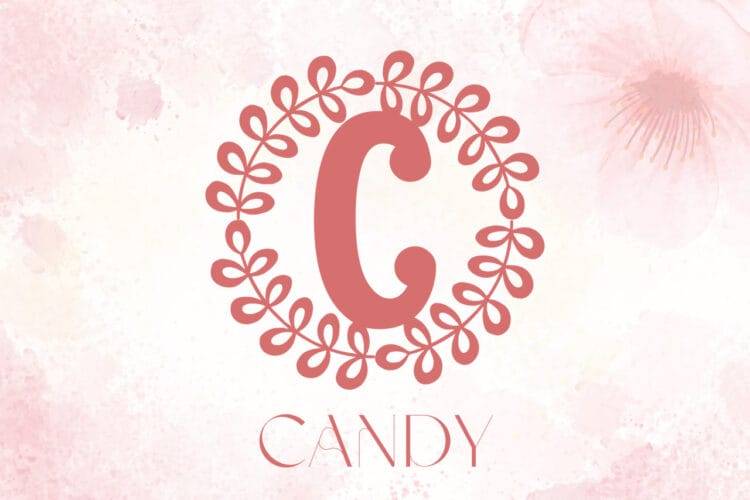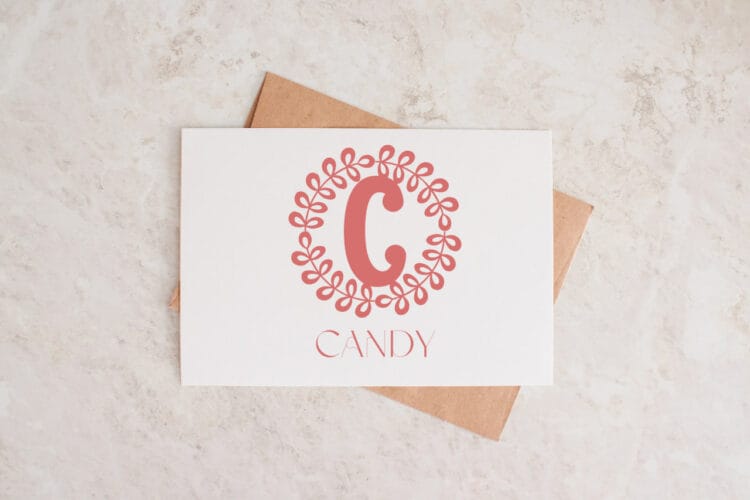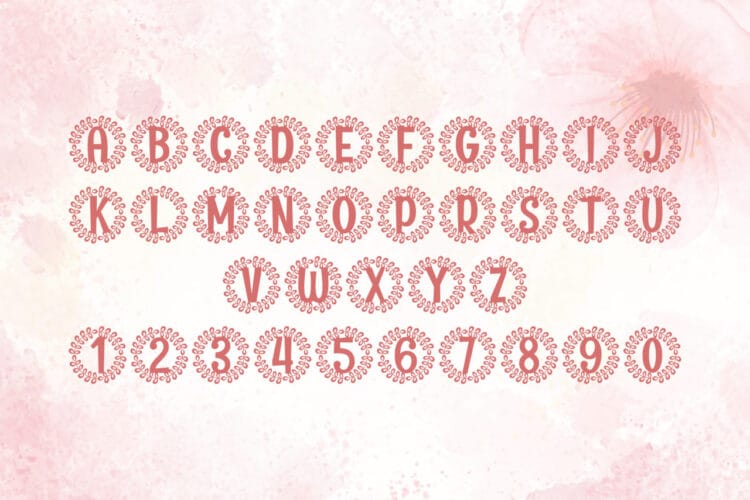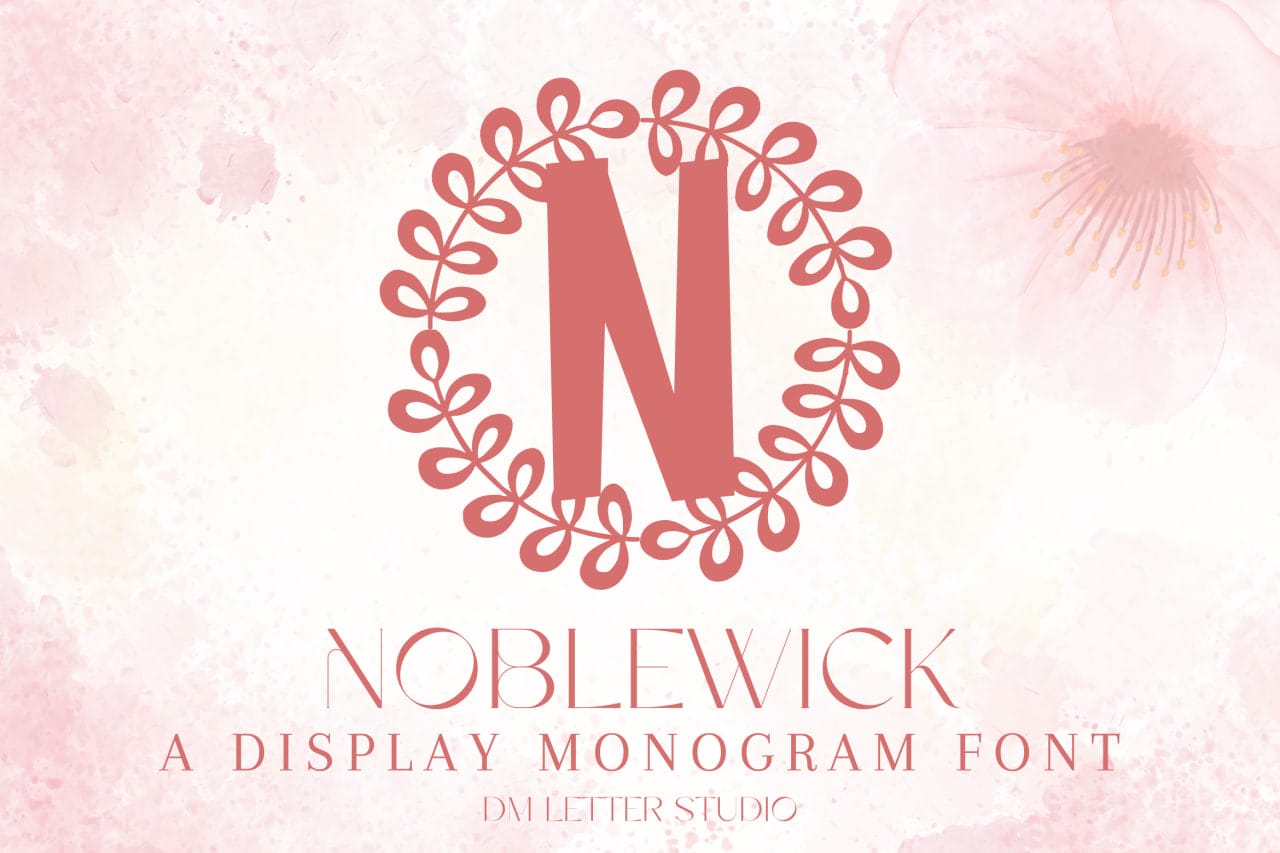
Meet Noblecraft, the Monogram Font
Noblecraft Monogram Font turns simple initials into poised, heirloom-ready emblems. Lines feel smooth and confident, while open counters keep tiny tags readable and thumbnails crisp. Use it for wedding suites, boutique logos, keepsake gifts, foil seals, and premium packaging. In addition, Noblecraft pairs beautifully with refined serifs and quiet humanist sans fonts, so layouts stay elegant without extra effort.
Where this monogram font shines
Set single, double, or triple initials for logos, seals, menus, and place cards. Then frame them with laurel rings, ovals, rope circles, or fine rules to echo the calm geometry. Since the proportions favor symmetry and clarity, centered compositions come together in minutes. As a result, listings stay consistent from invitations to signage, while the mark scales smoothly from jewelry cards to entry displays.
Design tips for Noblecraft Monogram
Keep initials large and let white space breathe. Pair the hero mark with a soft serif for body text or a neat sans for dates and labels. Then, Add micro shadows, a fine inner stroke, or a delicate frame for depth. Because the forms are airy and balanced, textured papers and metallic accents raise perceived value. Keep copy short so the monogram remains the hero on favors, tags, and wax seals.
Select stylistic alternates for key letters
Curves tuned for foil, letterpress, engraving, laser cutting, and clean vinyl paths
Why creators choose Noblecraft
You want elegance that reads at a glance and sells across many product types. Then, Noblecraft Monogram Font delivers steady clarity, quick layout, and a cohesive brand voice from invites to packaging and gifts.